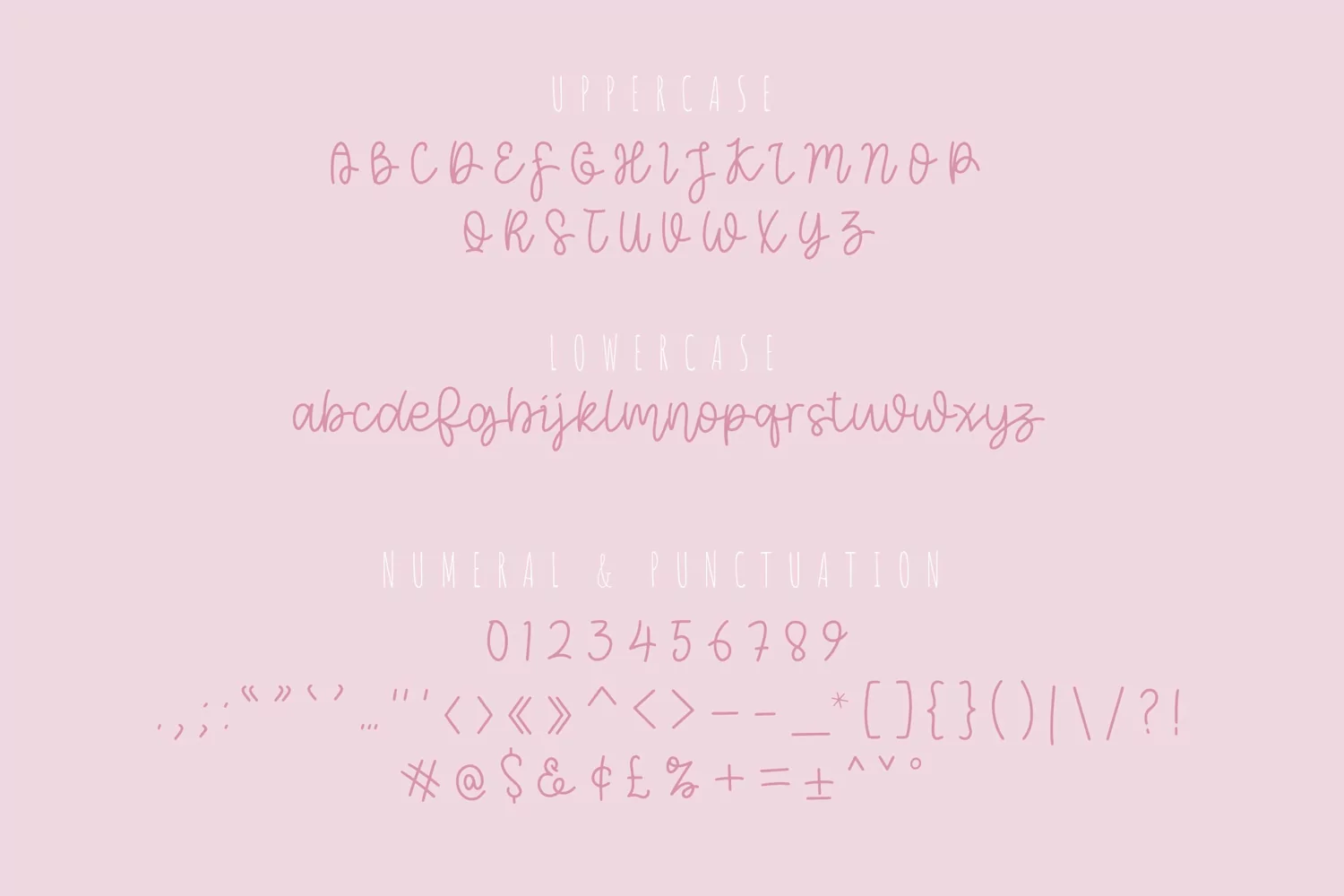
Momable is a thin and beautiful handwritten font. Its distinct and well-rounded letters make this font a masterpiece. Fall in love with its incredibly versatile style and use it to create spectacular designs!
Momable